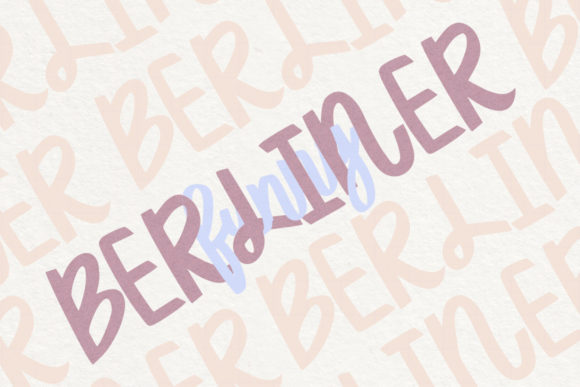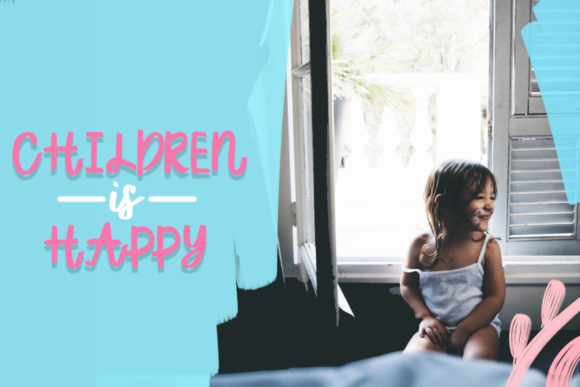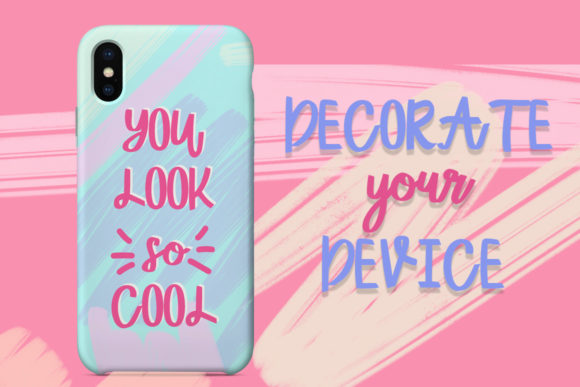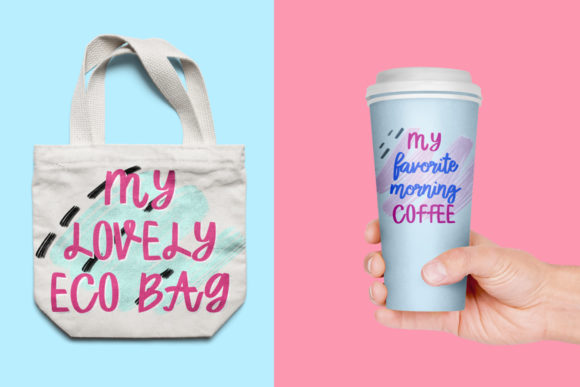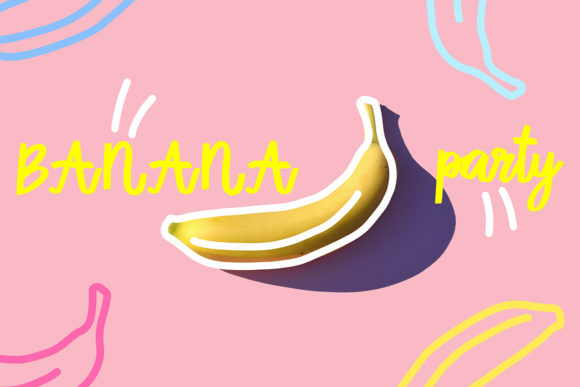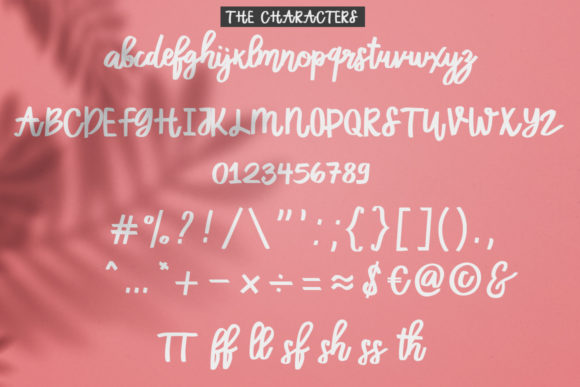
Introduction to Funny Berliner Font
As a designer, have you ever found yourself stuck on a creative project, searching for the perfect font to bring your idea to life? I know I have. That’s why I’m always on the lookout for unique and versatile fonts like the Funny Berliner Font. This lovely script font features cute handwritten letters that are sure to add a touch of personality to any design.
With its transparent background and high quality design, the Funny Berliner Font is the perfect addition to any creative project. Whether you’re designing a logo, creating a social media graphic, or working on a larger design project, this font is sure to be a valuable resource. And the best part? It’s available for free download, making it an accessible design resource for designers of all levels.
So, let’s dive into the world of the Funny Berliner Font and explore its many uses and benefits.
Key Features of Funny Berliner Font
- Unique and quirky design perfect for creative projects and humorous content
- Includes a range of characters and glyphs, including uppercase and lowercase letters, numbers, and punctuation
- Designed with a playful, handwritten feel that’s ideal for adding a touch of whimsy to your design resource
Honest Review: Funny Berliner Font
As a designer, I’m always on the lookout for high-quality design resources to elevate my creative projects. Recently, I stumbled upon the Funny Berliner Font, and I’m excited to share my honest review with you.
Here are the things that work well: ✨ The font has a unique, playful style that’s perfect for adding some humor to your designs. It’s also incredibly versatile, suitable for a wide range of creative projects, from social media graphics to print materials. Additionally, the font is a free download, making it an excellent resource for designers on a budget.
One thing to keep in mind is that the font has a transparent background, which may not be ideal for all designs. Additionally, some users may find the font’s bold style overwhelming. ⚠️ Here are some potential limitations to consider:
- May not be suitable for designs that require a more subtle look
- May require additional design elements to balance out the bold style
Overall, I’m impressed with the Funny Berliner Font. While it may have some limitations, its unique style and versatility make it a valuable addition to any designer’s toolkit. If you’re looking for a fun, eye-catching font to elevate your creative projects, I highly recommend giving it a try.
How to Use Funny Berliner Font
The Funny Berliner Font is a unique and playful design resource that can add a creative touch to any project. It’s perfect for designers looking for a high-quality, free download to enhance their designs.
Tips for Getting the Most Out of Funny Berliner Font
To get the most out of the Funny Berliner Font, use it on a transparent background to create a fun and playful design element. You can also pair it with other design elements, such as graphics and images, to create a unique and eye-catching design.
Common Use Cases for Funny Berliner Font
The Funny Berliner Font is perfect for designers working on creative projects, such as social media graphics, posters, and flyers. It’s also great for designers who need a high-quality, free download to enhance their designs.